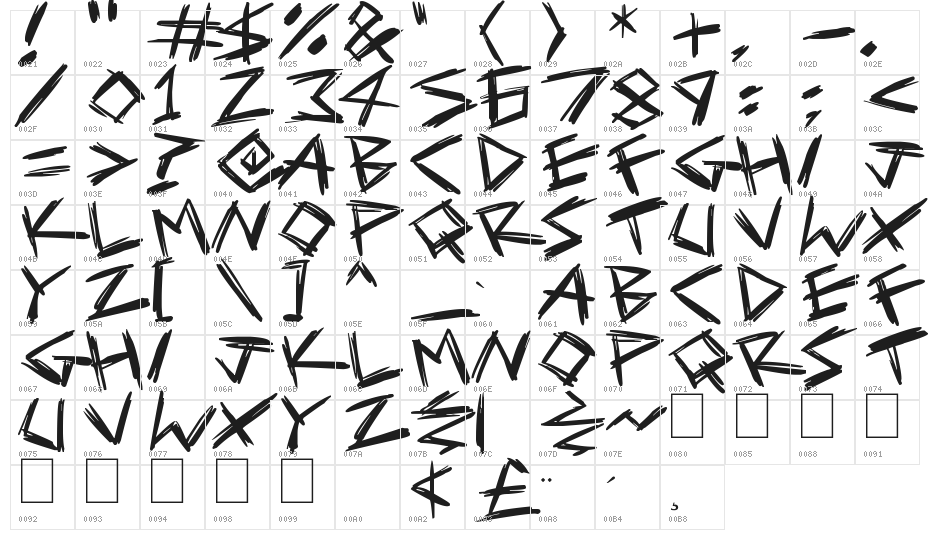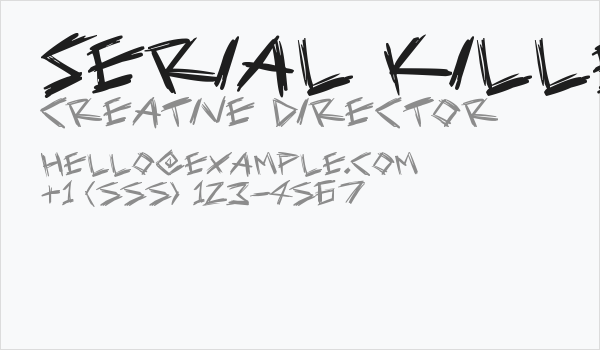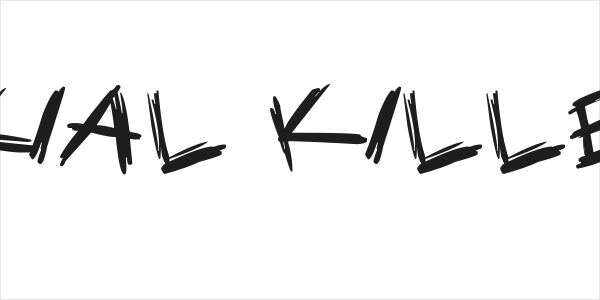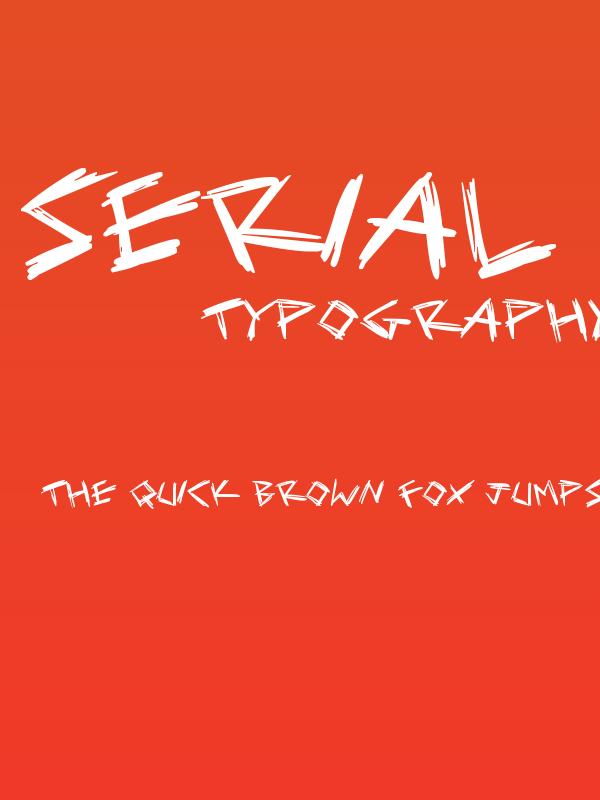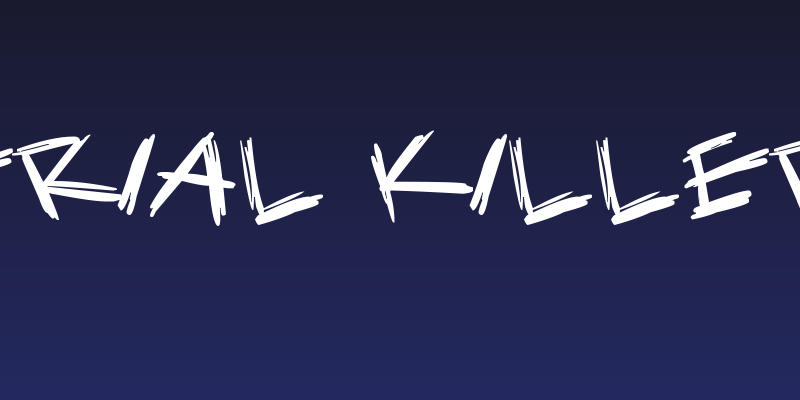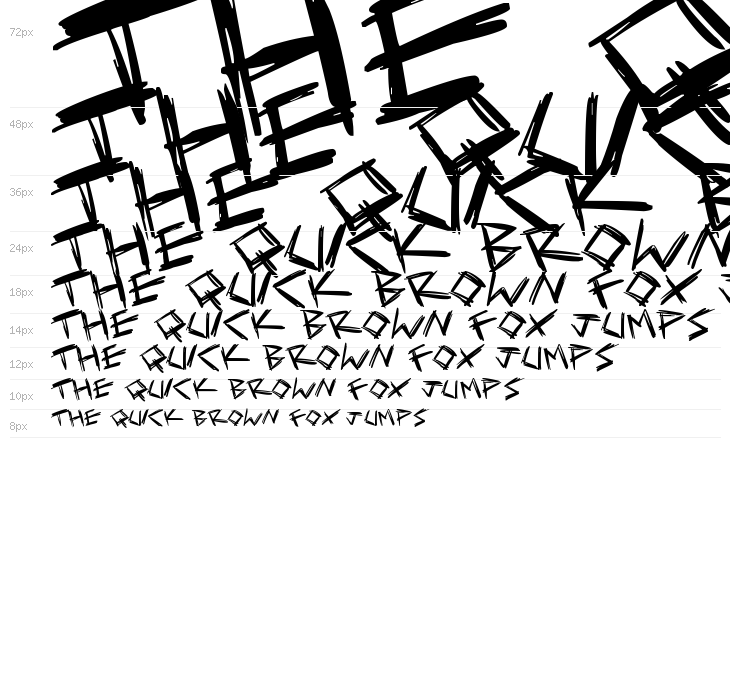
Serial Killers Font
Serial Killers Description
This font features a bold, jagged, and edgy design that mimics a hand-drawn, graffiti-like style. The characters are irregular and dynamic, with sharp angles and varying stroke thicknesses that create a sense of urgency and intensity. The uppercase and lowercase letters maintain a consistent style, while the numbers and special characters complement the overall aesthetic with their rugged appearance. This font is highly expressive, making it suitable for projects that require a strong visual impact.
| Proposed Projects | Ideal for horror-themed posters, edgy branding, album covers, and street art-inspired designs. |